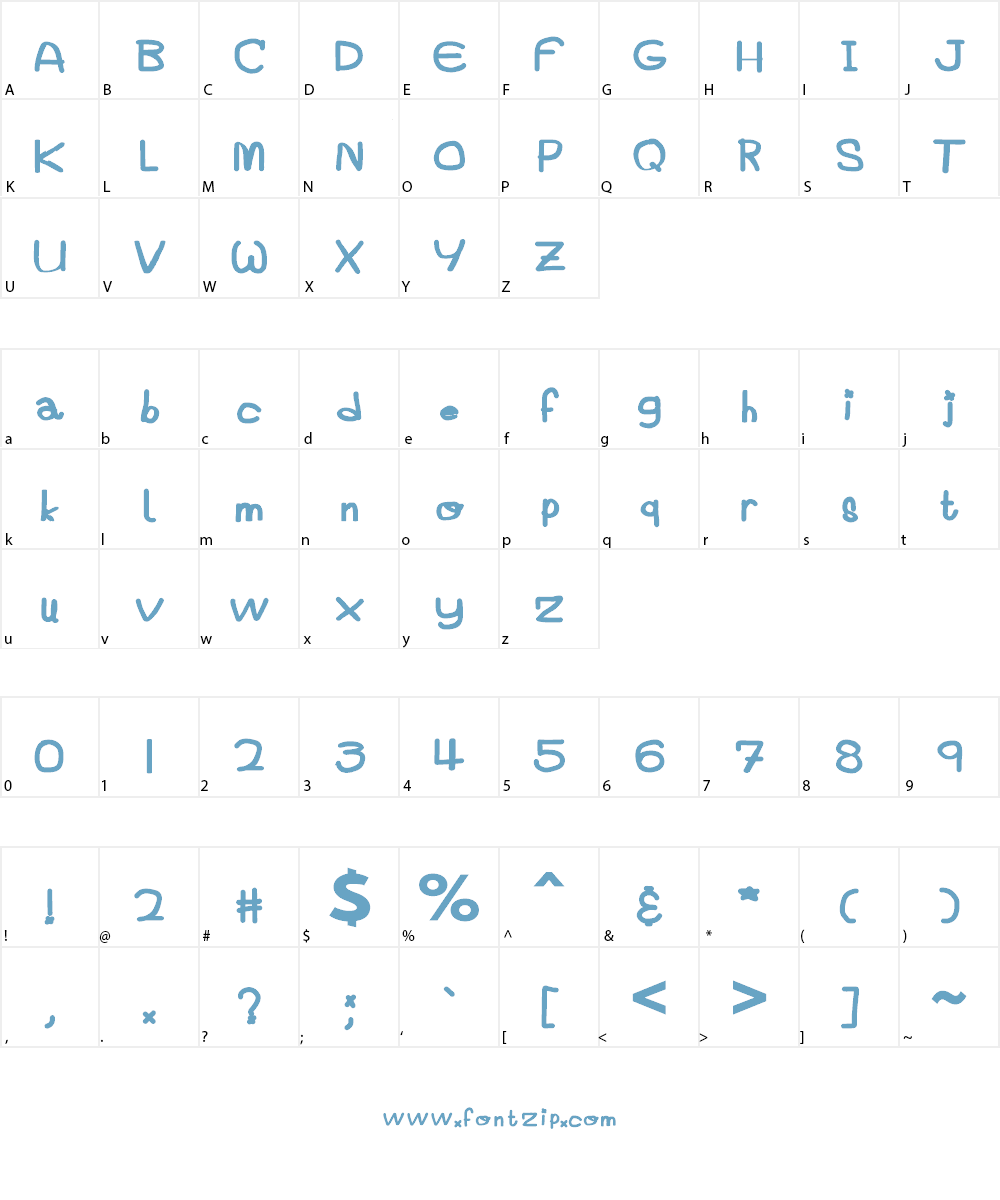
A new font made by Heaven Castro Studios.
Candys R Grozz 2.0 is a revised and a now-thickened handwriting font, now with italics! It has Euopean accents and more symbols.